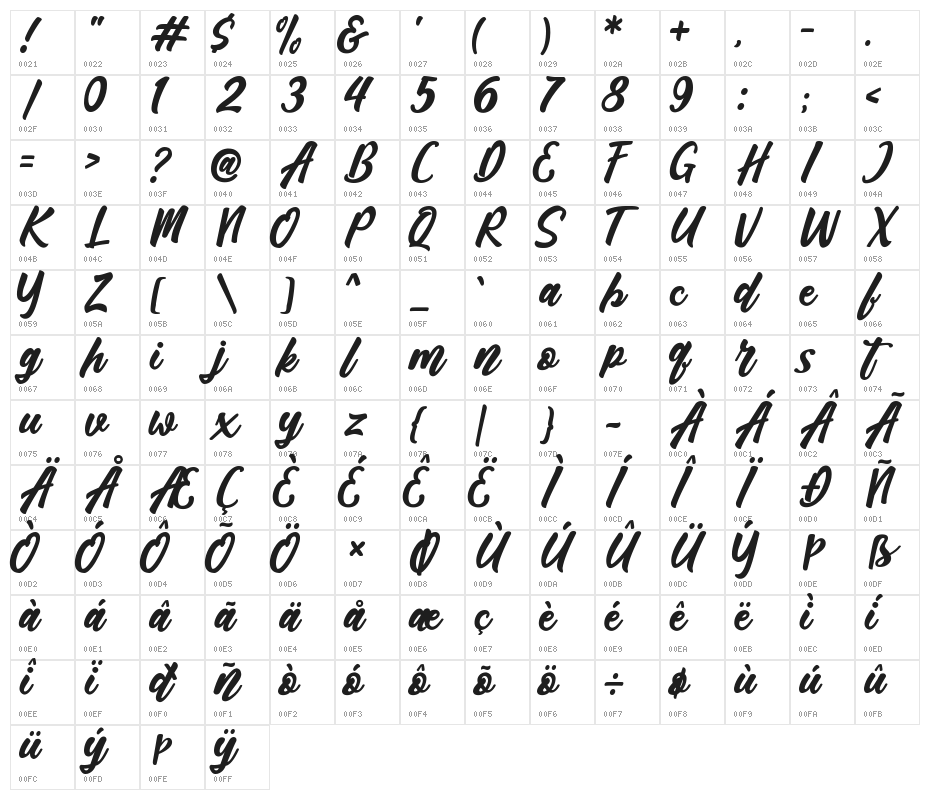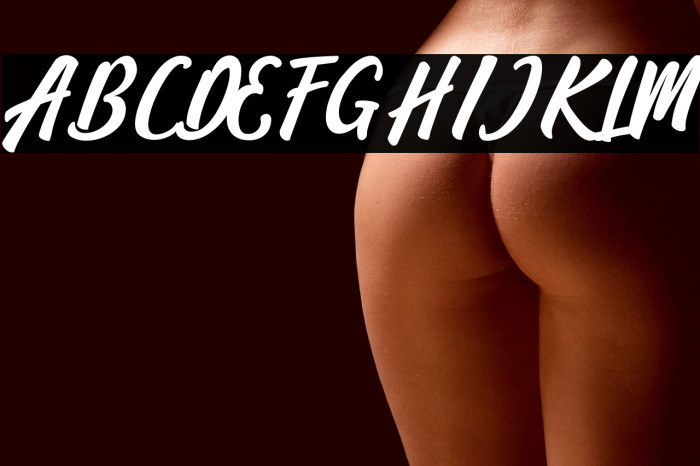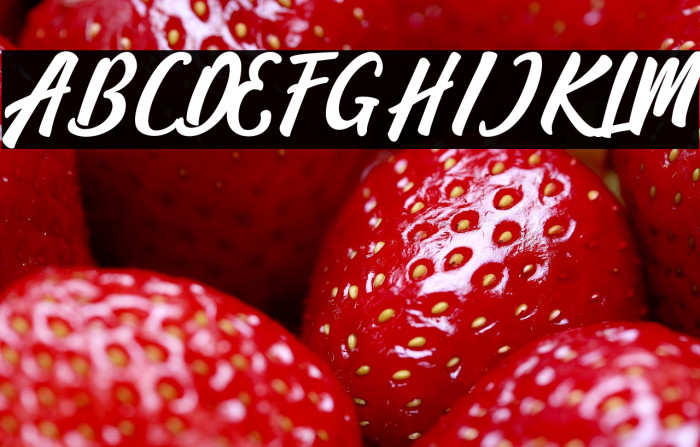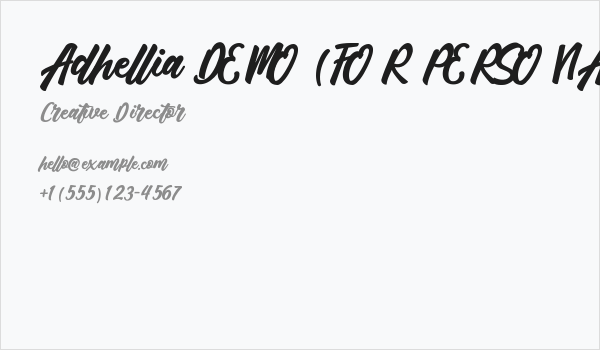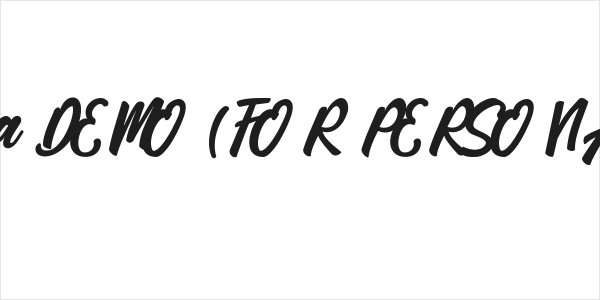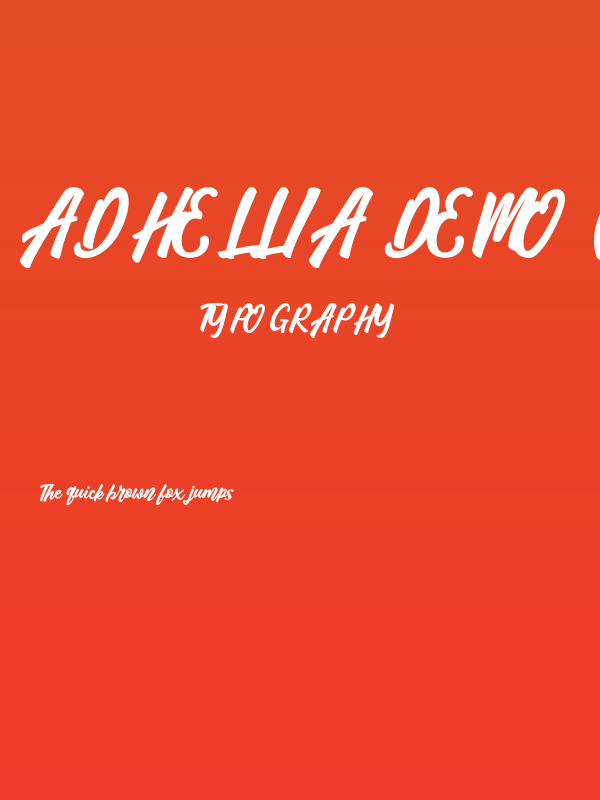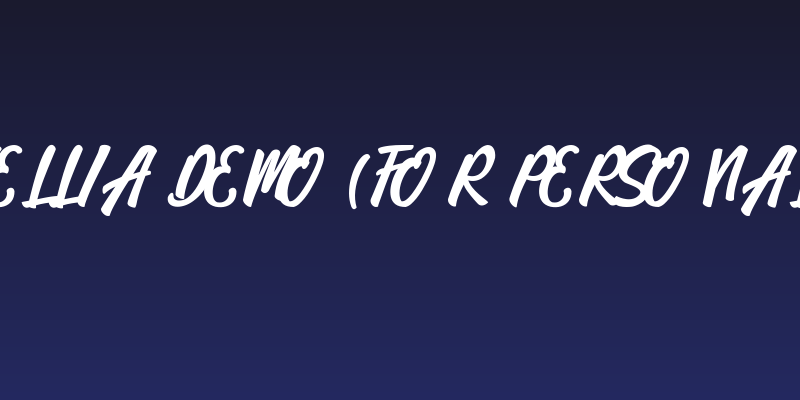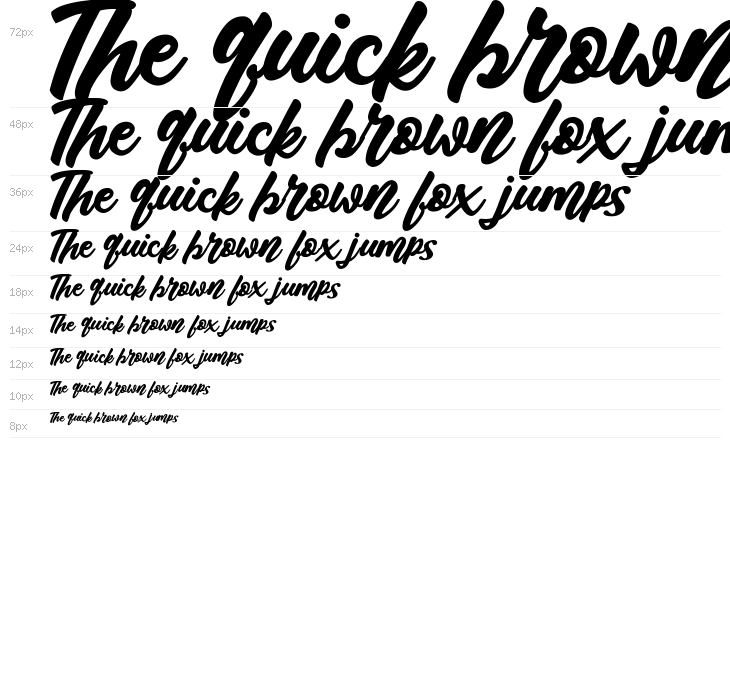
Adhellia DEMO (FOR PERSONAL USE Font
Adhellia DEMO (FOR PERSONAL USE Description
This font features a bold and expressive script style with a handwritten appearance. The letters are connected in a fluid manner, giving it a dynamic and energetic feel. The uppercase letters are slightly more structured, while the lowercase letters exhibit a more casual and flowing design. The numbers and special characters maintain the same lively style, ensuring consistency throughout. The strokes are thick and consistent, providing a strong visual impact. This font is perfect for projects that require a personal touch or a sense of movement and creativity.
| Proposed Projects | Ideal for branding, invitations, greeting cards, and creative posters. |